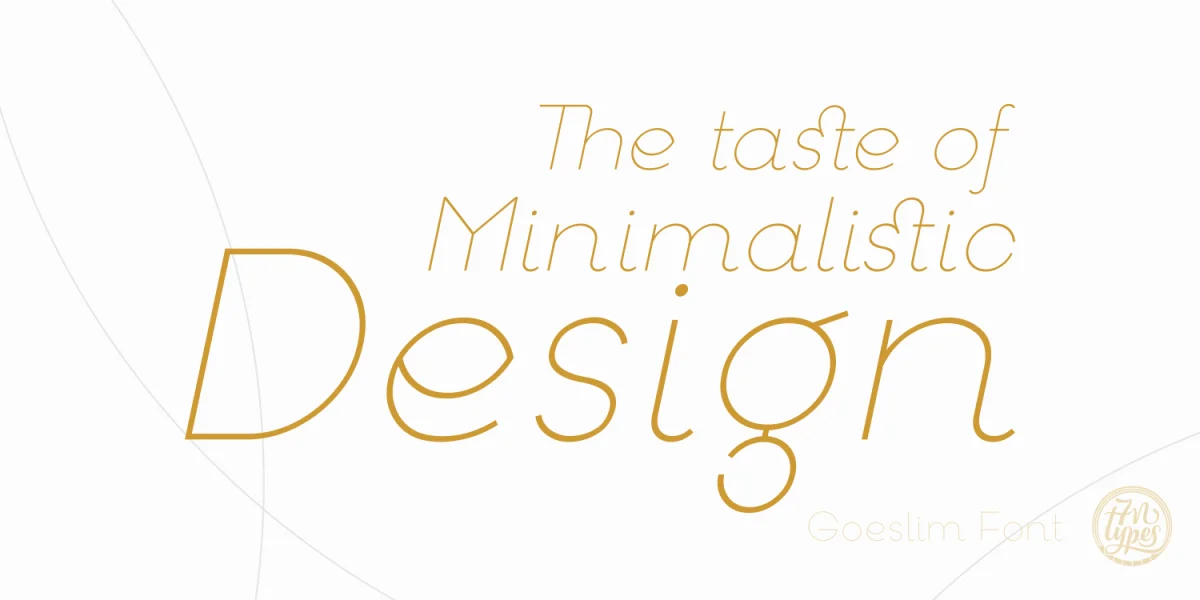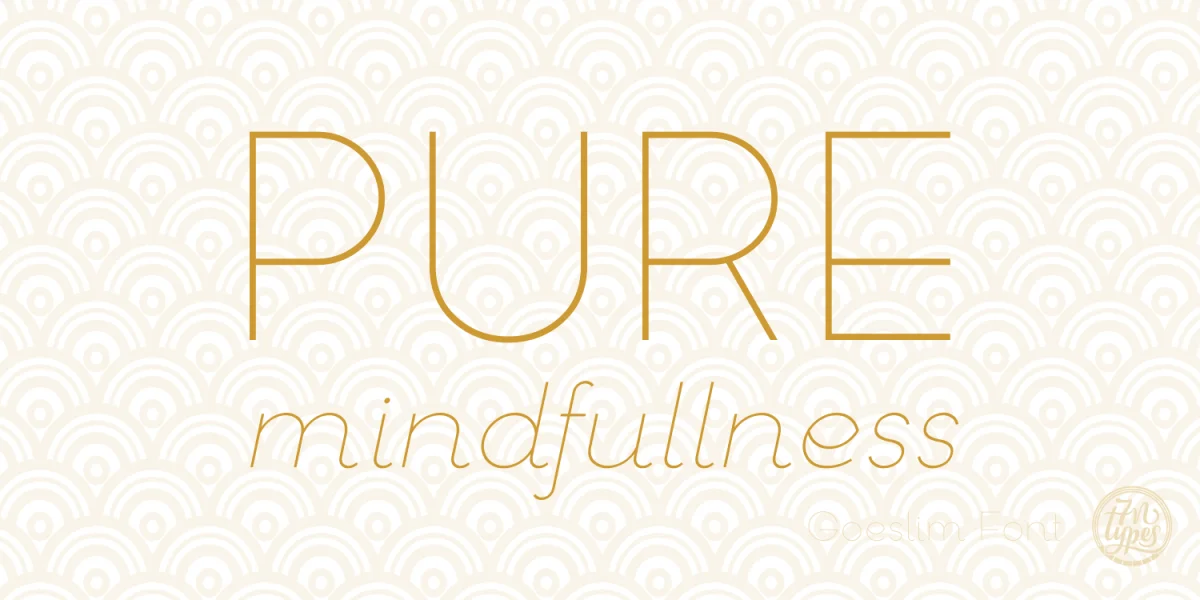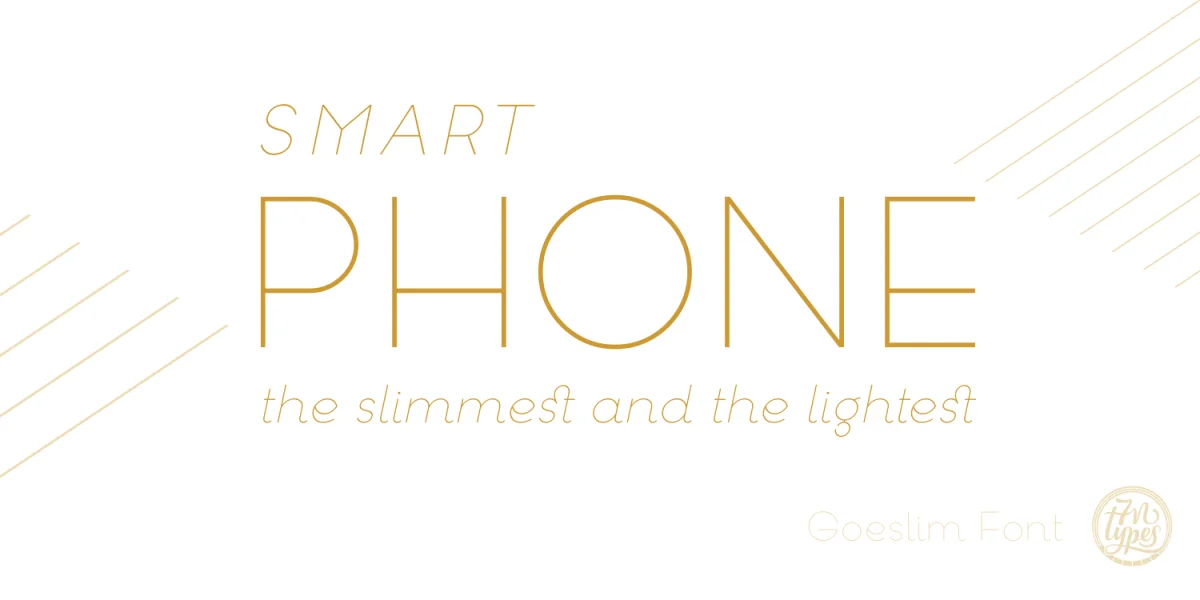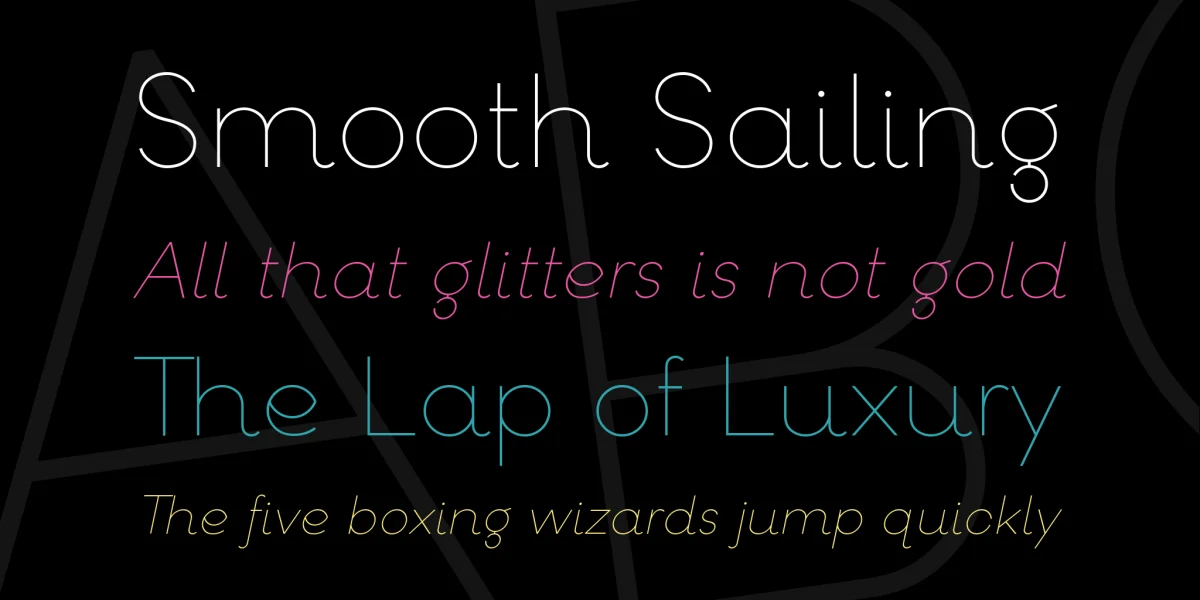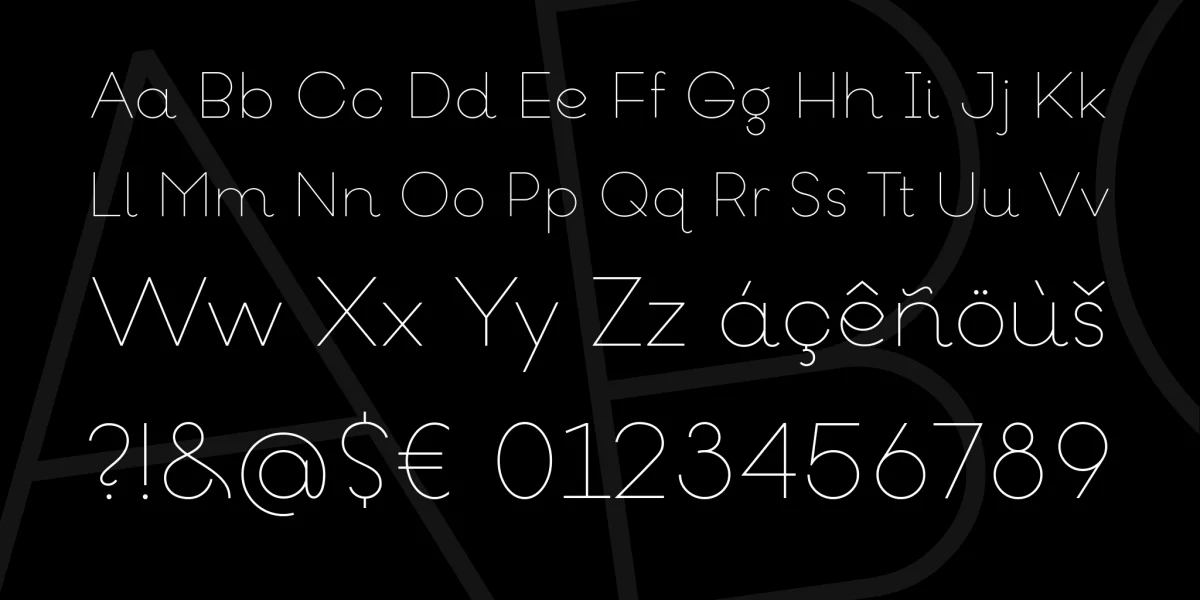
Goeslim is an ultra-thin, super elegant font. The classy rounded shape and small decorations make this font stand out and suitable for a large range of projects.
The Goeslim font is great for branding as it’s easy to read, clean, but very distinctive.